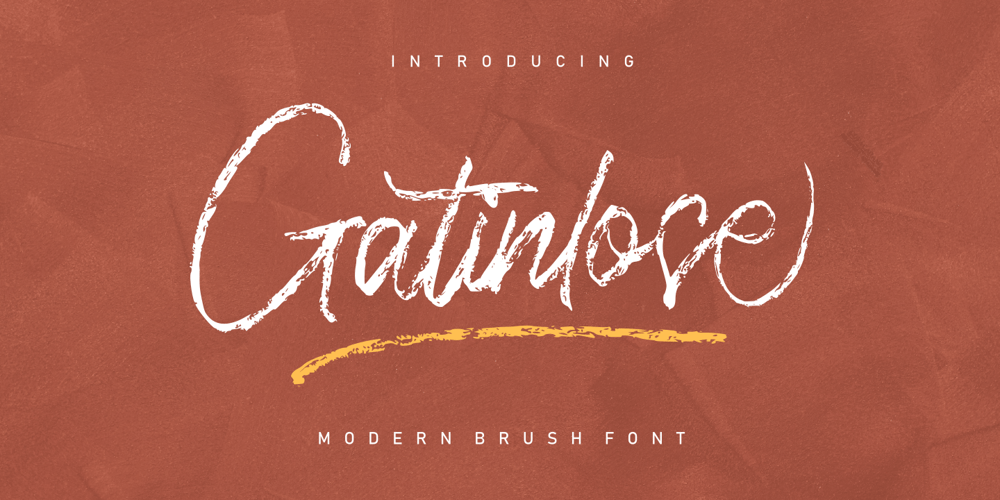
Gatinlose Font Family was designed by Zeenesia Studio and published by Zeenesia Studio. Gatinlose contains 1 styles and family package options. Introducing our new font Gatinlose is a Handwritten font in a modern and coarse script style. This font is made with a rough brush to produce handwritten textured.Gatinlose can be used for various projects such as stationery invitations, social media, logos, weddings, branding, graphic design to support the project you want to work on.We hope you enjoy the font, please feel free to comment if you have any thoughts or feedback. Or simply send me a PM or email me at zeenesia@gmail.com.Thanks for purchasing and have fun!